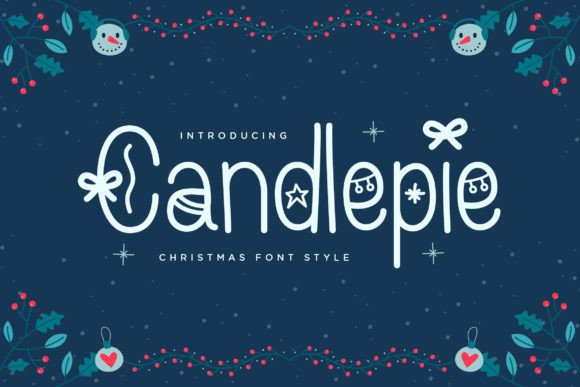
Unleash the Festive Charm of Candlepie: A Merry Christmas Font Style for Every Occasion
Prepare to be mesmerized by Candlepie, a resplendent Christmas font style brimming with joyous energy, meticulously crafted by the skilled artisans at TypeFactory. Step into a realm of whimsical lettering and elegant flourishes, where every character dances with merriment and enchantment. With its captivating curves and enchanting details, Candlepie promises to transform your designs into enchanting masterpieces.
Candlepie is more than just a font; it's a magical tool that transports you to a world of holiday cheer and merriment. Effortlessly elevate your greeting cards, invitations, posters, and social media posts with the festive charm of Candlepie, turning them into works of art that spread joy and warmth. Its versatile nature makes it the perfect companion for a myriad of creative projects, allowing you to add a touch of Christmas magic to any design.
Immerse yourself in a font style that's as versatile as it is captivating. Candlepie shines in the spotlight of festive designs, effortlessly capturing the essence of the season. Its playful and lighthearted spirit makes it the perfect choice for adding a touch of whimsy and cheer to your designs, while its festive look and feel ensures that the Christmas spirit radiates in every word.
With Candlepie, you have the power to create designs that speak volumes, spreading joy and enchantment with every letter. Let your creativity soar, and transform your designs into enchanting masterpieces that capture the magic of the season. Embark on a typographic adventure with Candlepie, where every design becomes a festive celebration.